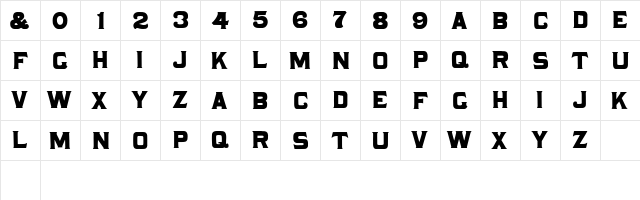
Forsythe HPLHS
Design Context for Forsythe Typeface
Forsythe takes a measured approach to typography — its balanced proportions and neutral character make it a reliable workhorse for both digital and print work.